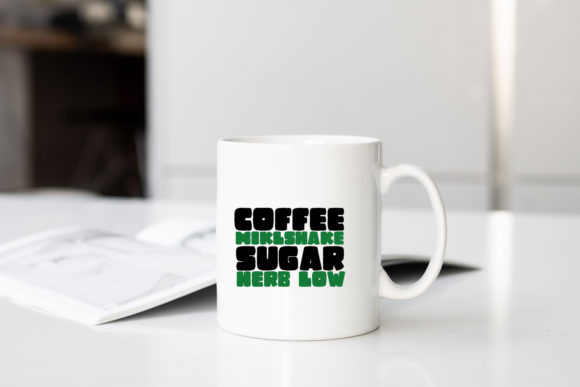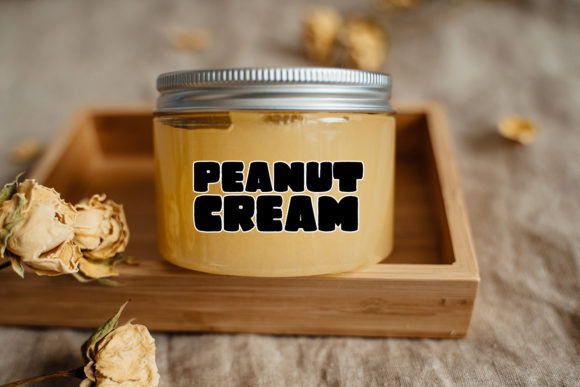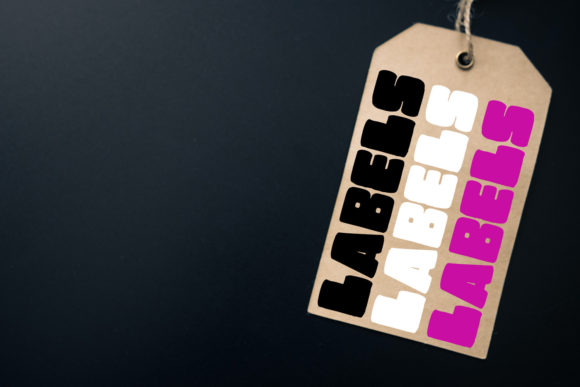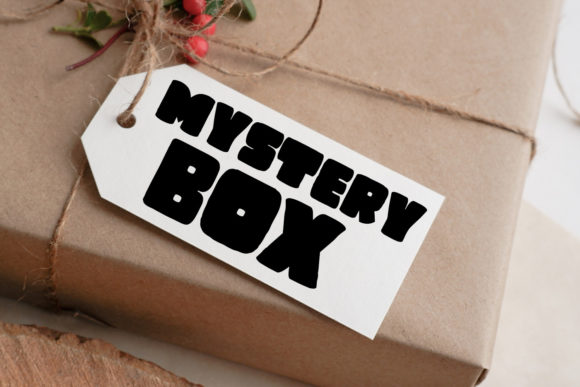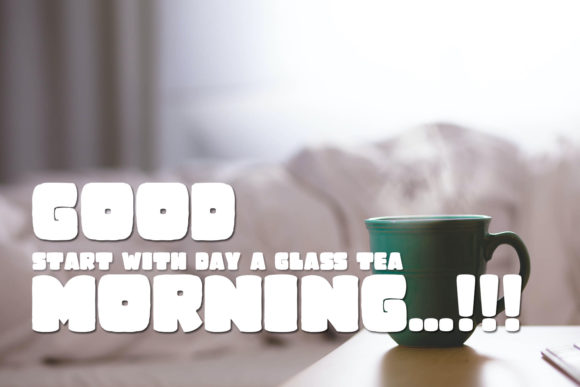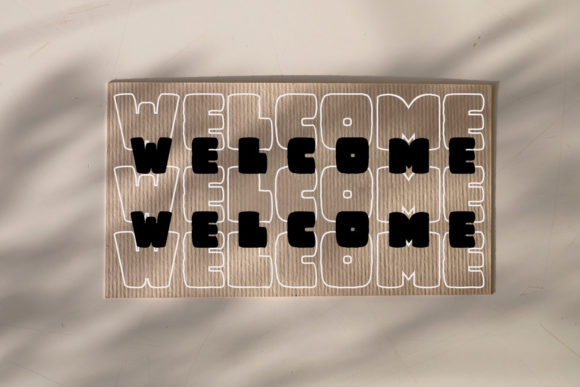
Introduction to Matcha Bubbles Font
Matcha Bubbles is a big and bold display font.
Create a sensation using this font, and add it to magazines, brands, books, comics, kids-related designs, banners, or anything you wish to create .